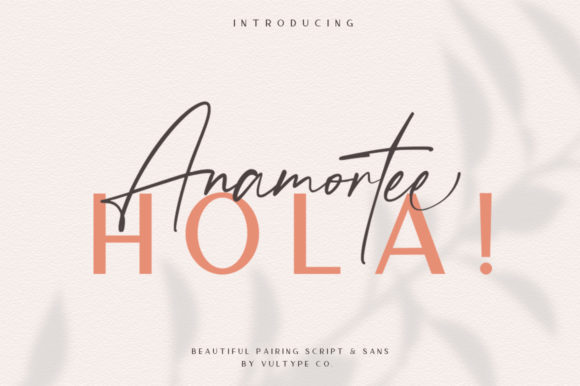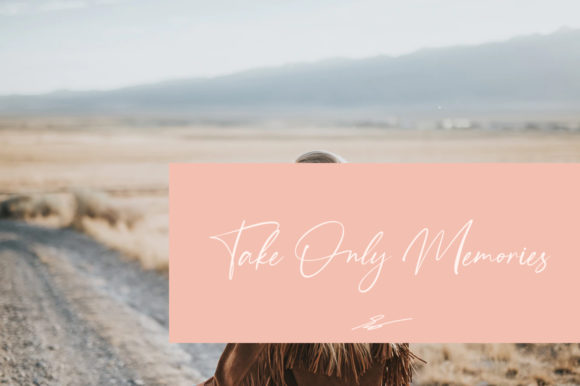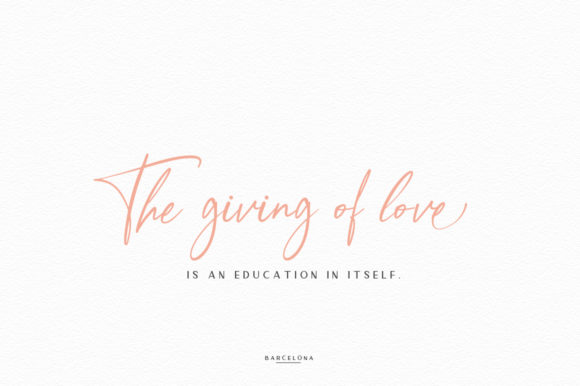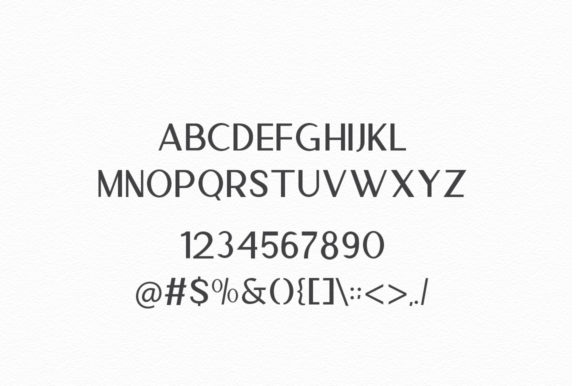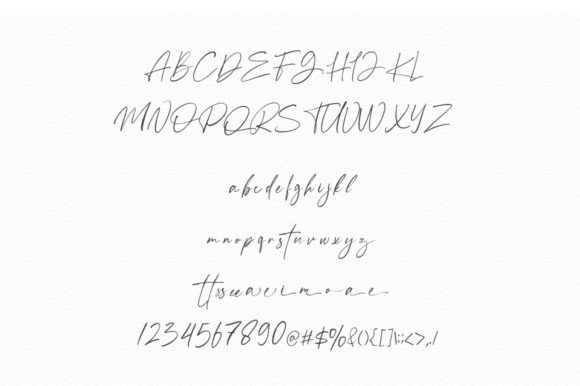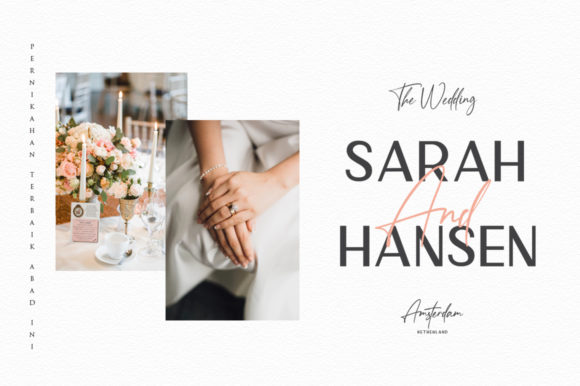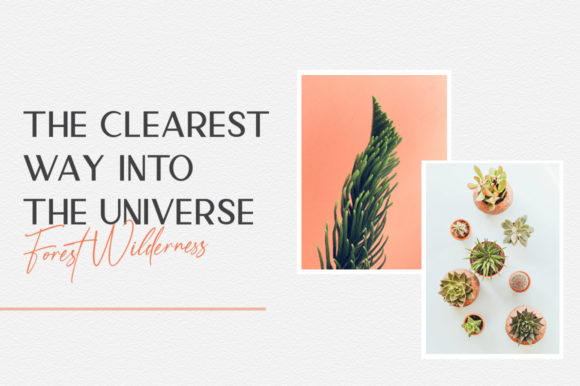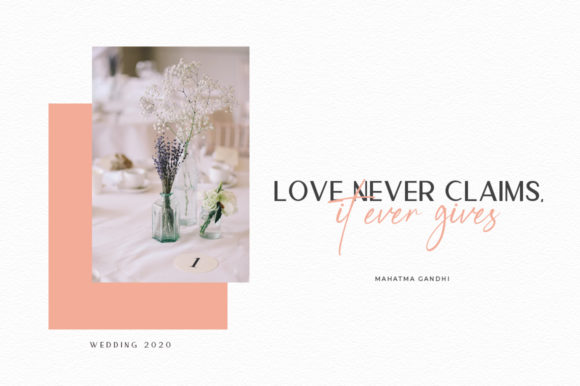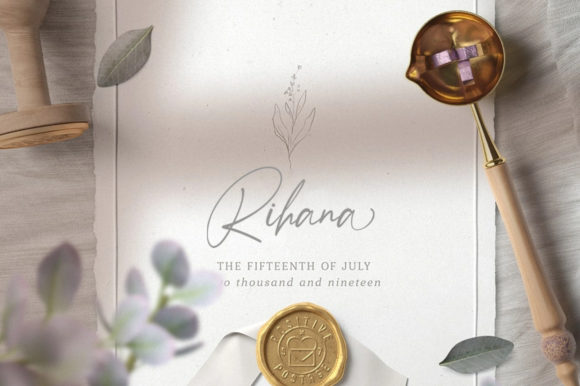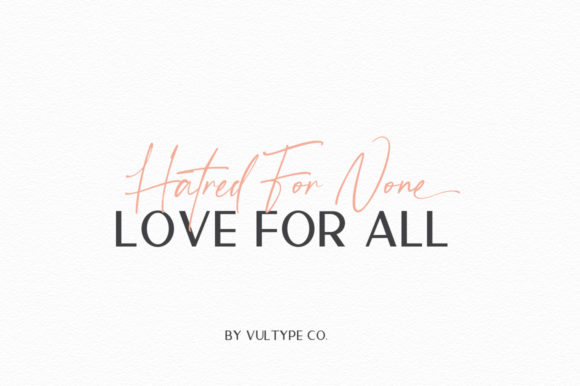
Anamortee Font
About Anamortee Font
Anamortee is a lovely font duo that brings together a gorgeous script and sans font. Combine them to achieve stunning results, and turn any design project into a masterpiece!